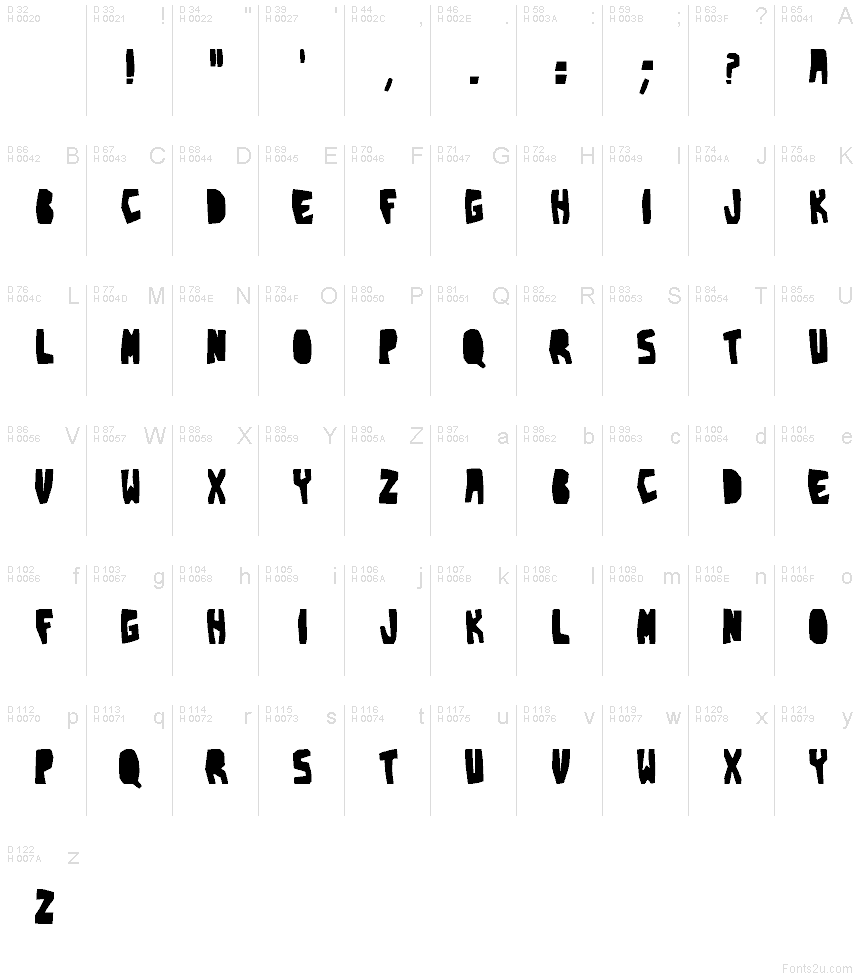
Pepper X Cupa Regular
Pepper X Cupa font by Thiagogol is a free bold cartoon display font. It stands out with blocky, hand-cut silhouettes that feel chiseled and spicy—angular edges, swollen strokes, and a lively tilt give every word a peppery snap. The chunky forms pack ink like a brush pushed hard, while the tight rhythm keeps headlines loud but readable.
Using Pepper X Cupa, you get instant zest for hot sauce labels, snack packaging, street‑food posters, game titles, YouTube thumbnails, and festival signage. This free font thrives big and close, where its rugged contours and playful swagger can shout. Pair it with a plain, narrow sans for body copy, and let Pepper X Cupa handle the punchy headlines.